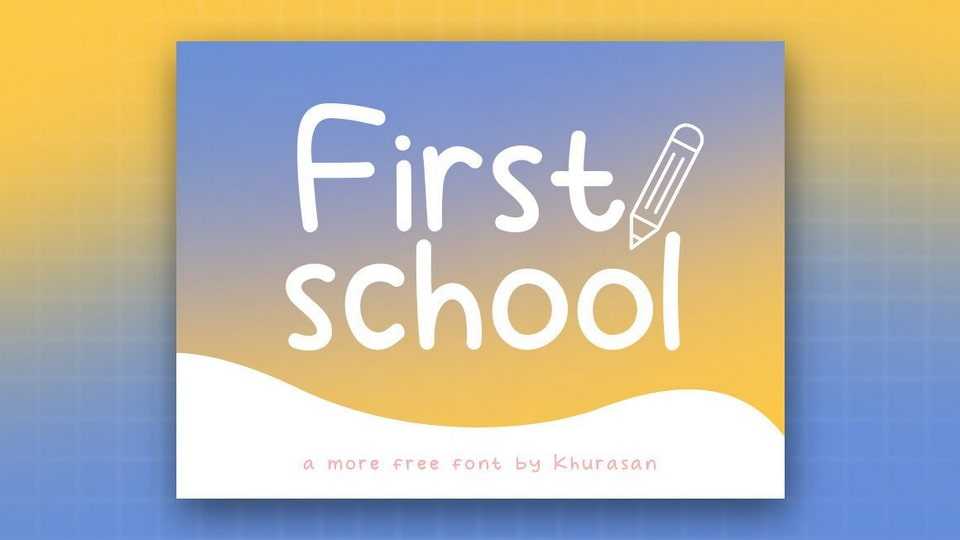
Download First School font, a simple and natural handwritten typeface for a comics and kids design. First School font is also perfect for posters, logos, magazines, book covers, banners, and many more.